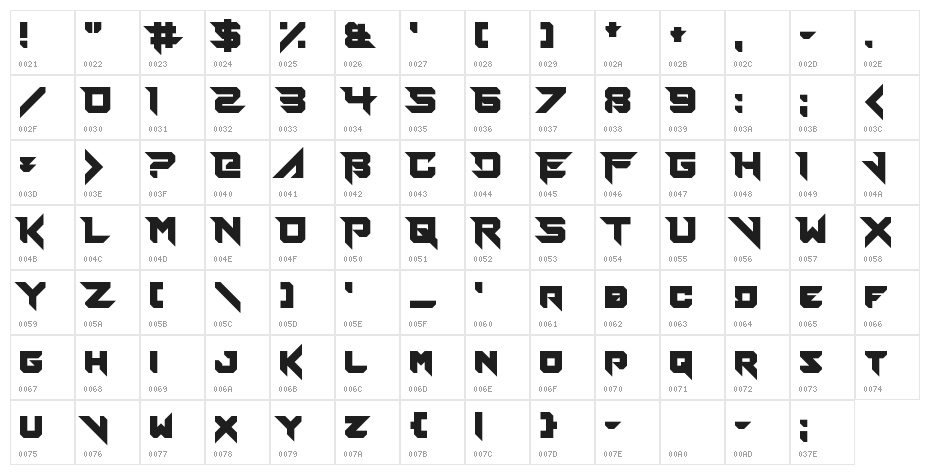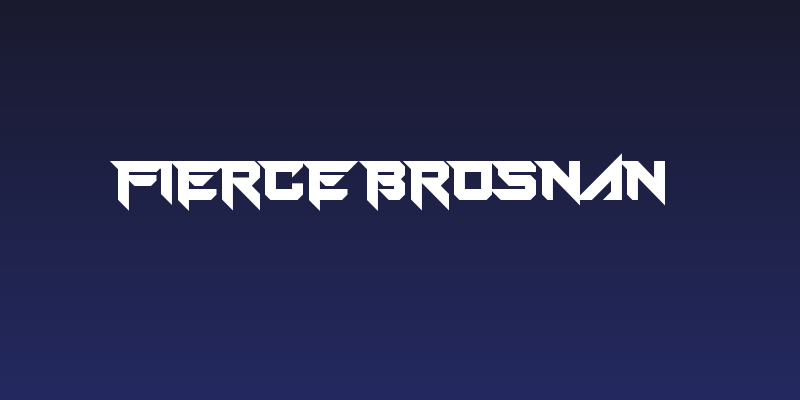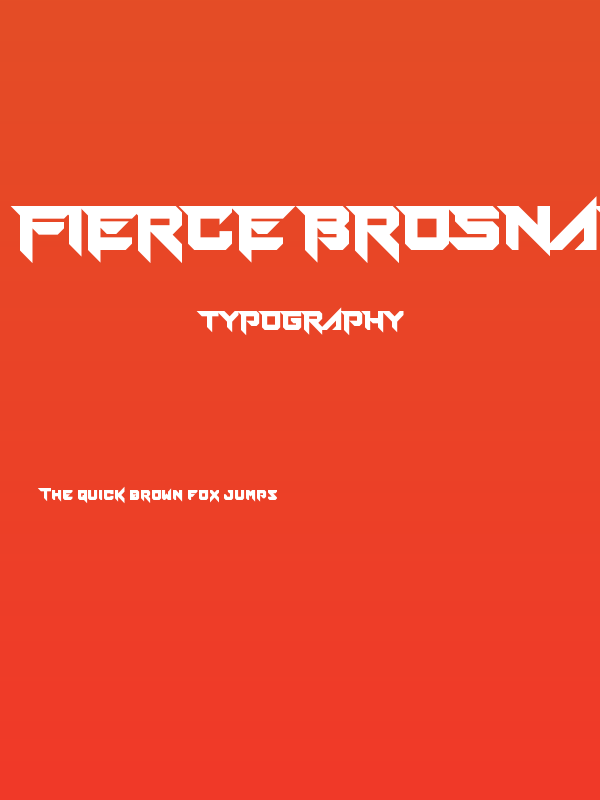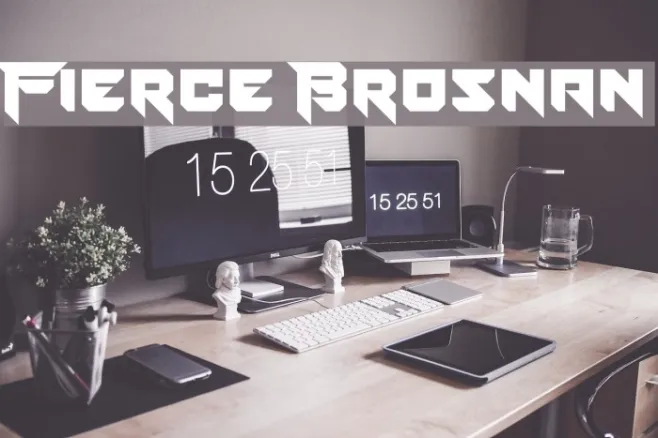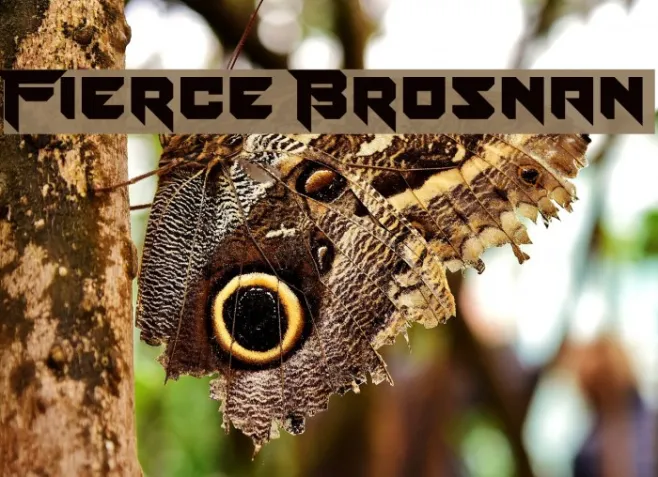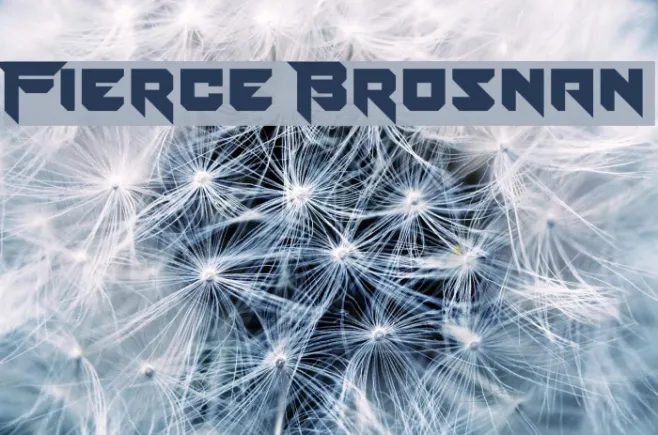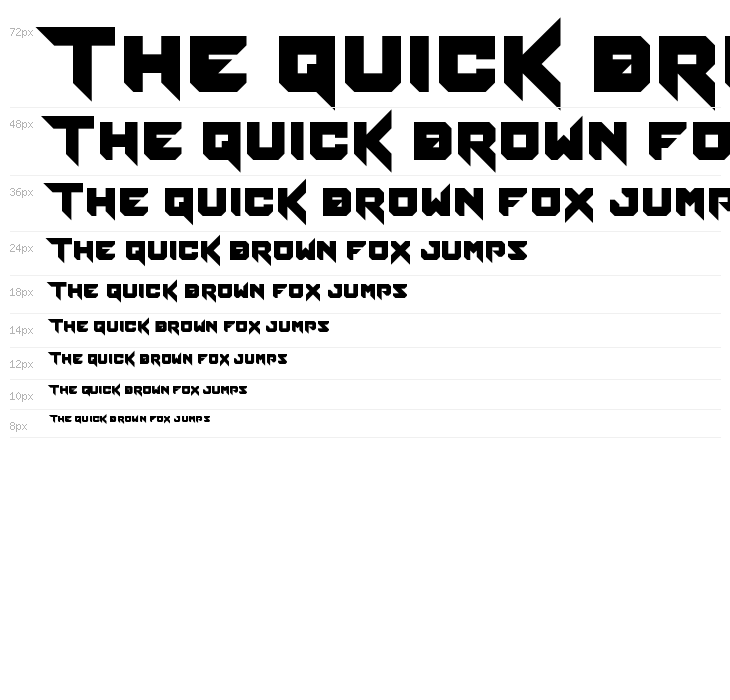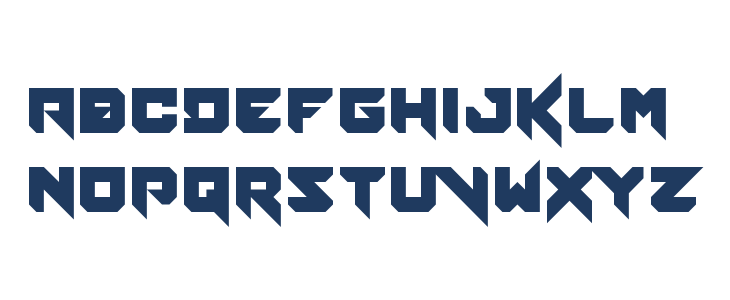
Fierce Brosnan Font
Fierce Brosnan Description
This font features a bold, angular design with sharp edges and a futuristic aesthetic. The characters are constructed with a geometric precision, giving them a dynamic and aggressive appearance. The uppercase and lowercase letters maintain a consistent style, emphasizing the font's cohesive look. Numbers and special characters are designed to match the overall theme, ensuring uniformity across all glyphs. The font's unique style makes it stand out, ideal for projects that require a strong visual impact.
| Proposed Projects | Perfect for video game titles, sci-fi movie posters, tech branding, and edgy graphic design projects. |